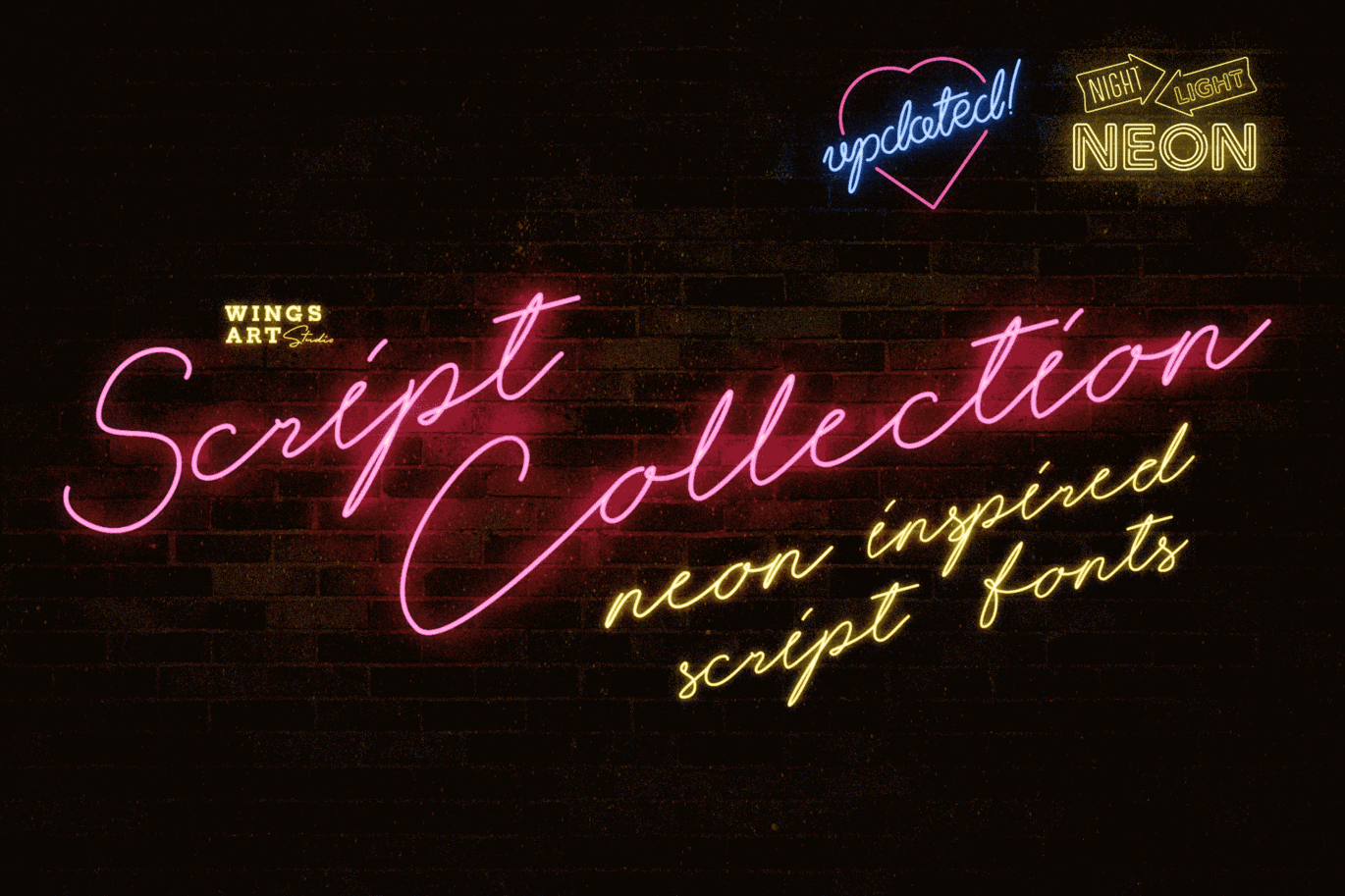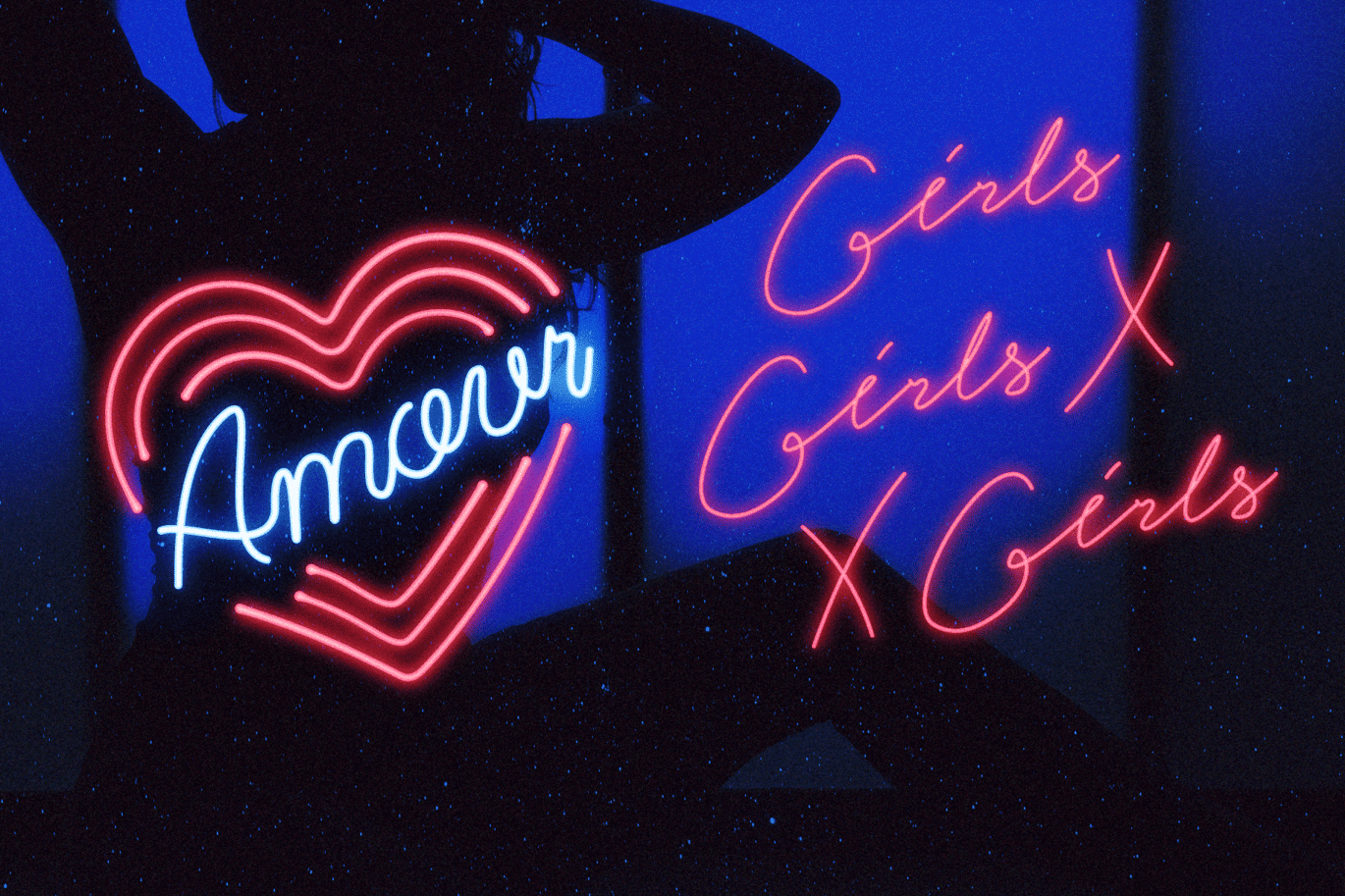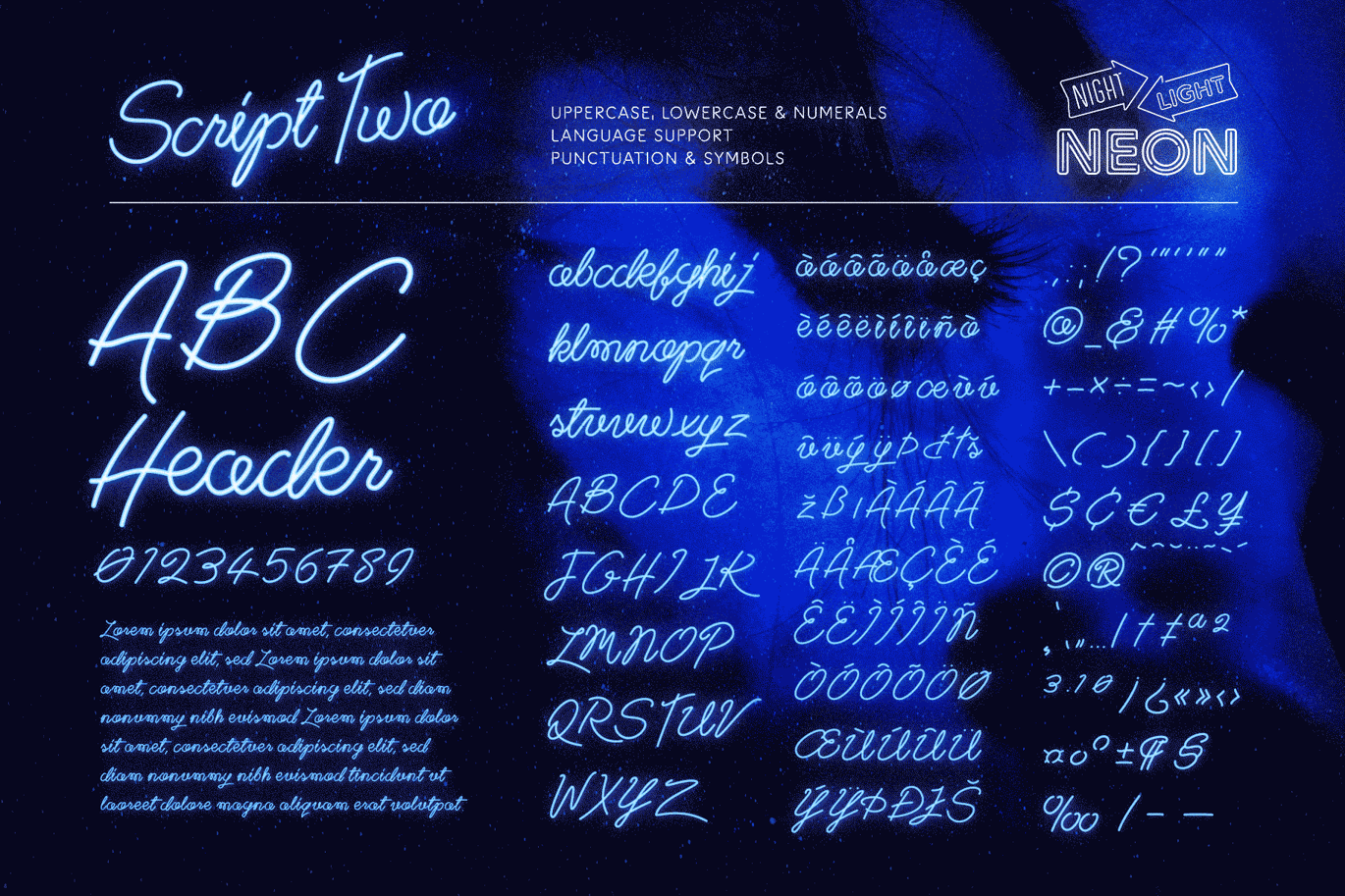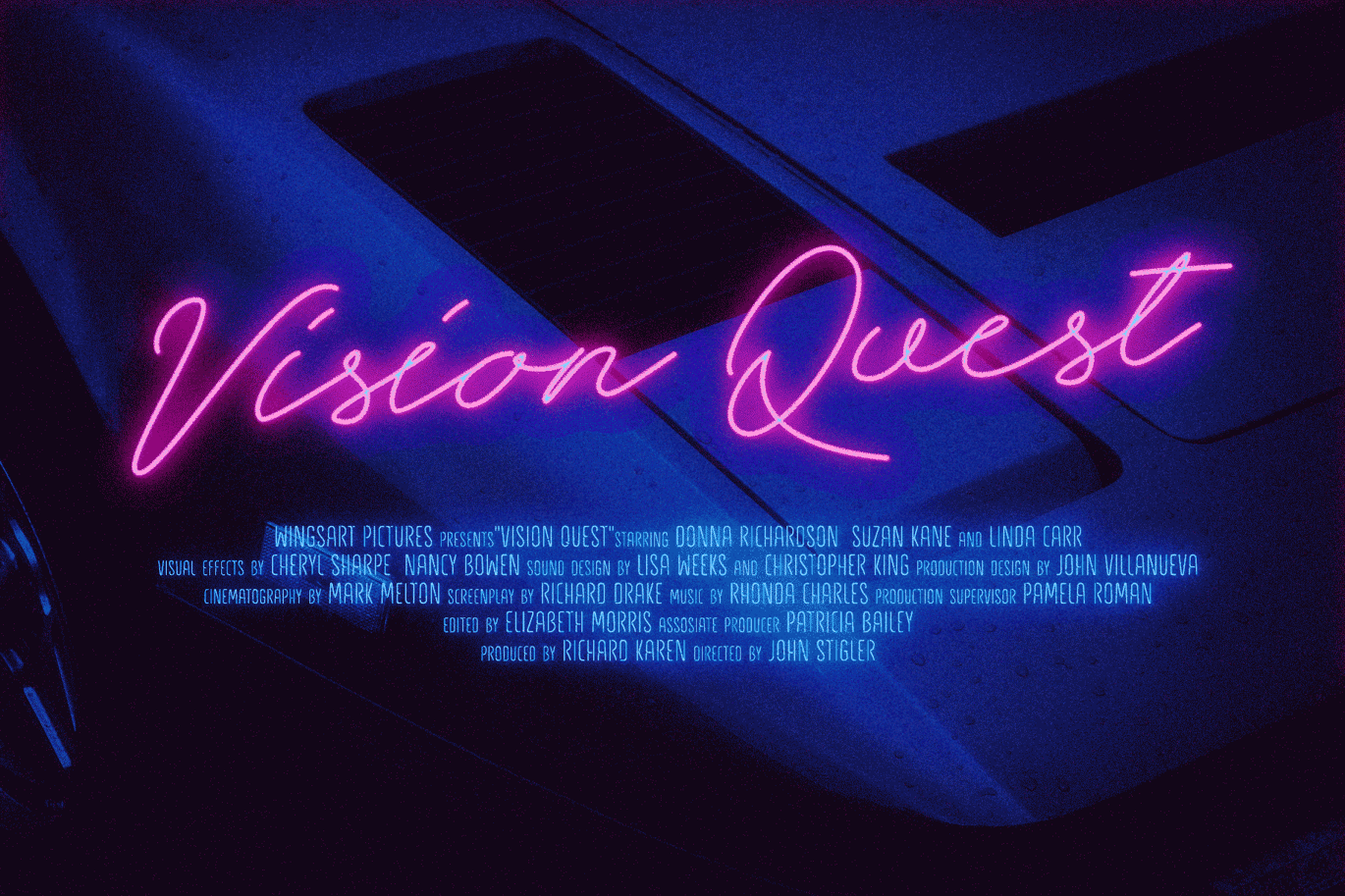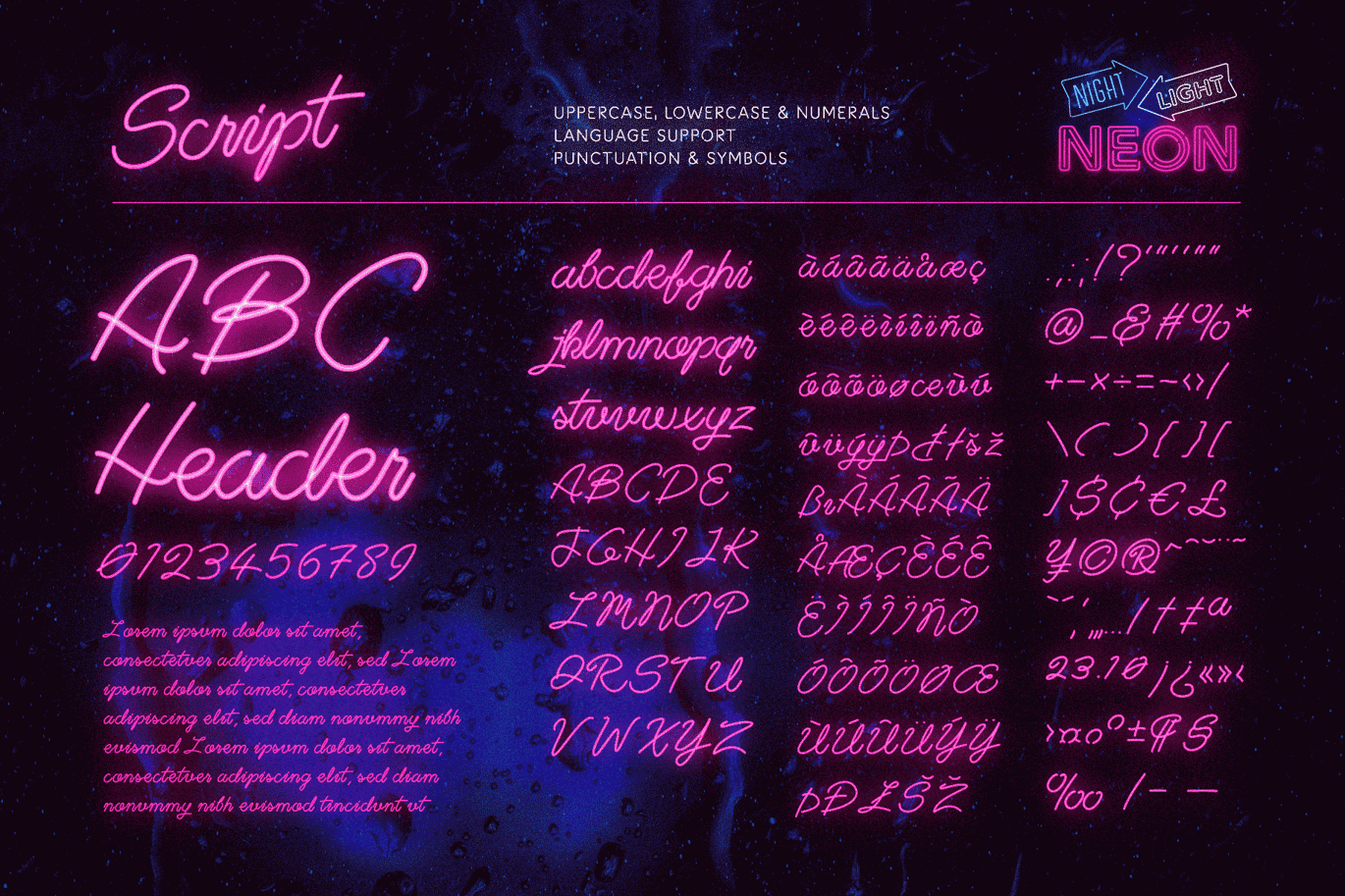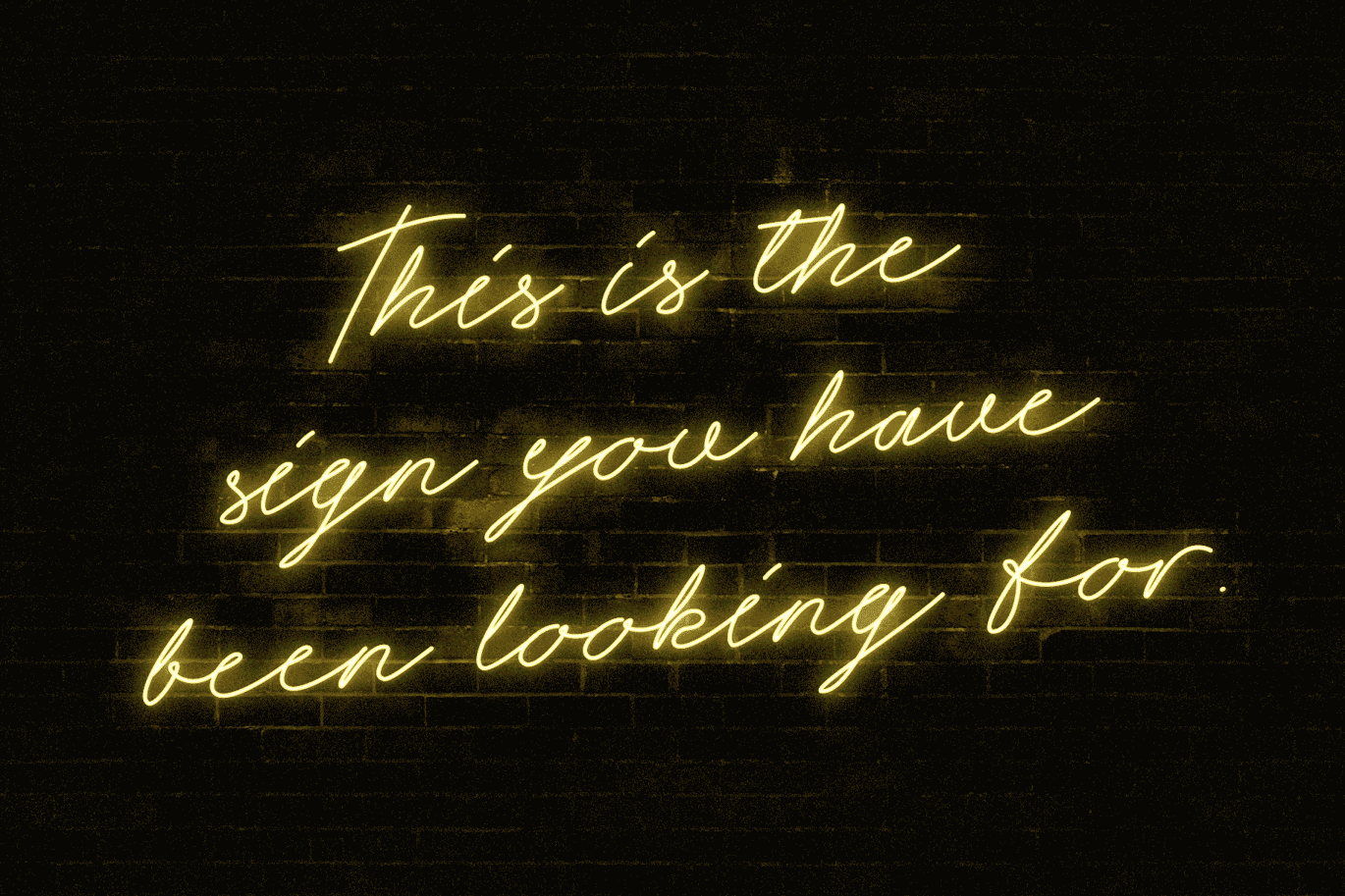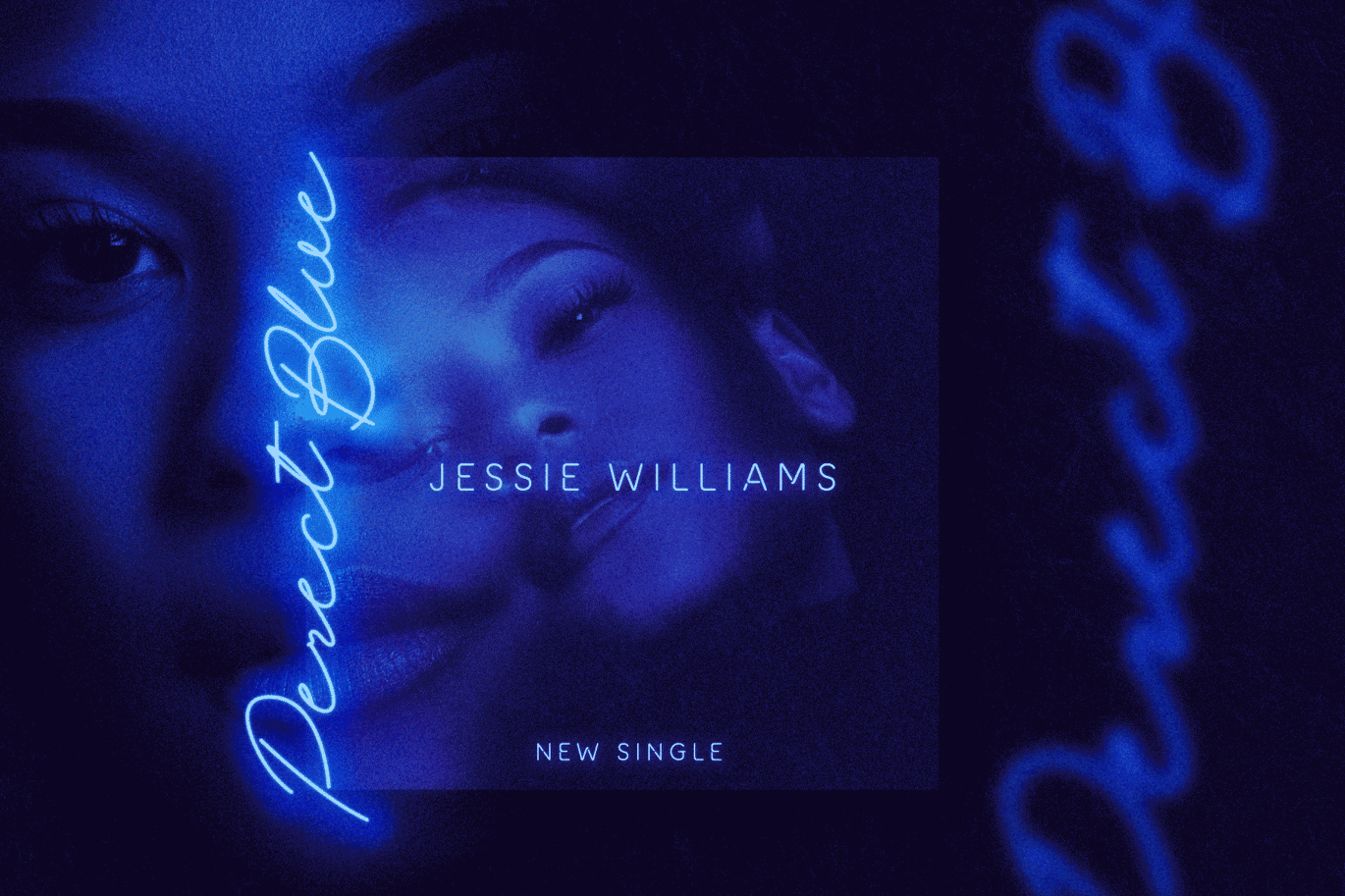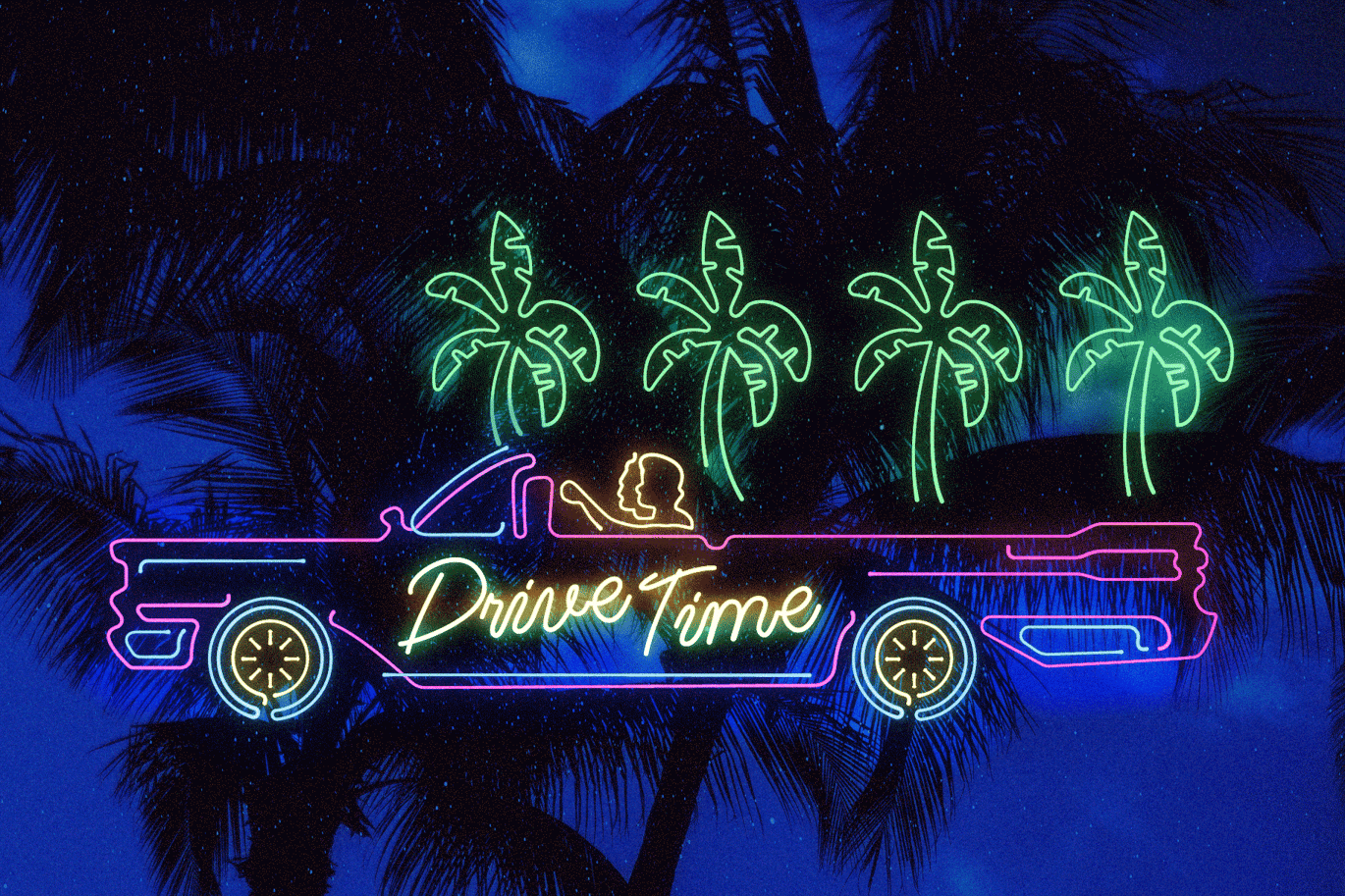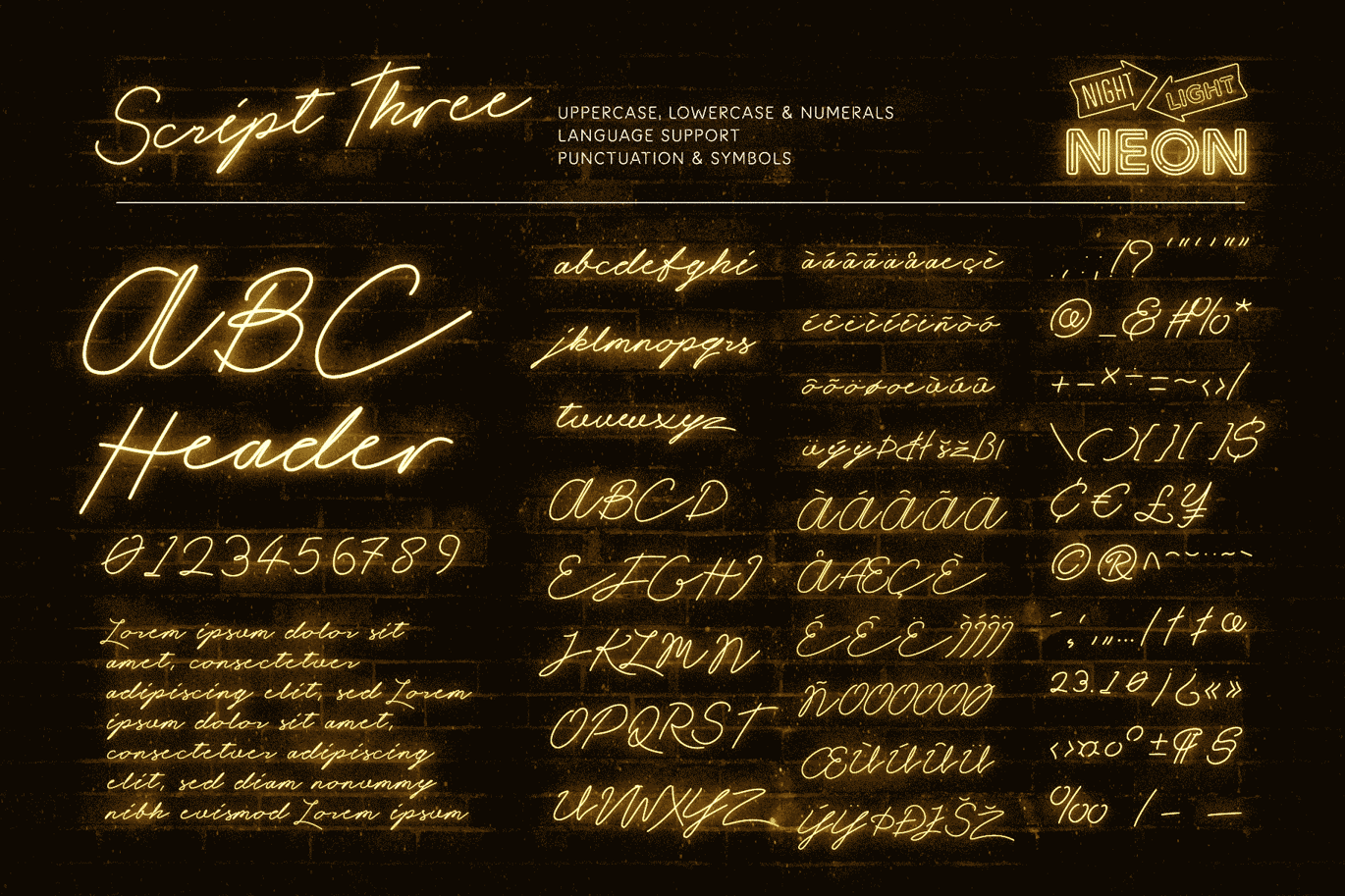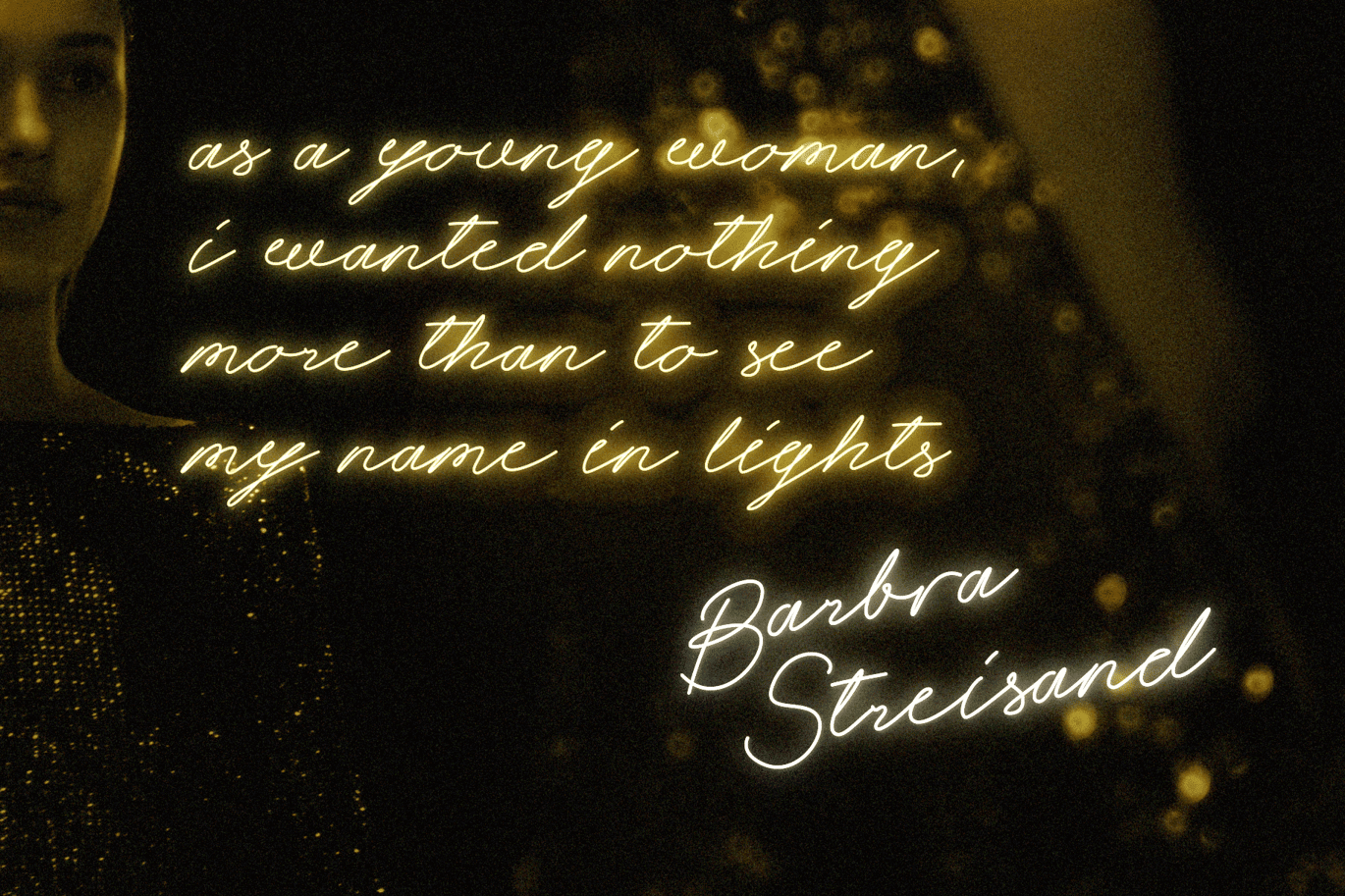
Retro Neon Font – Script Style
Night Light: Neon Script Fonts – New Updated Styles!
Specially created neon inspired fonts giving designers the power to replicate traditionally hand-made lettering from the comfort of their computer.
ACHIEVE AN AUTHENTIC NEON LOOK
These Script style fonts works great as headlines for music promotion, film titles, Youtube tutorials and gig posters, and when combined with our graphic presets* can achieve a truly realistic neon look.
Night Light: The Neon Script Fonts:
- Script
- Script Two
- Script Three
Uppercase and lowercase letters, numbers, punctuation and language support.